Degarism
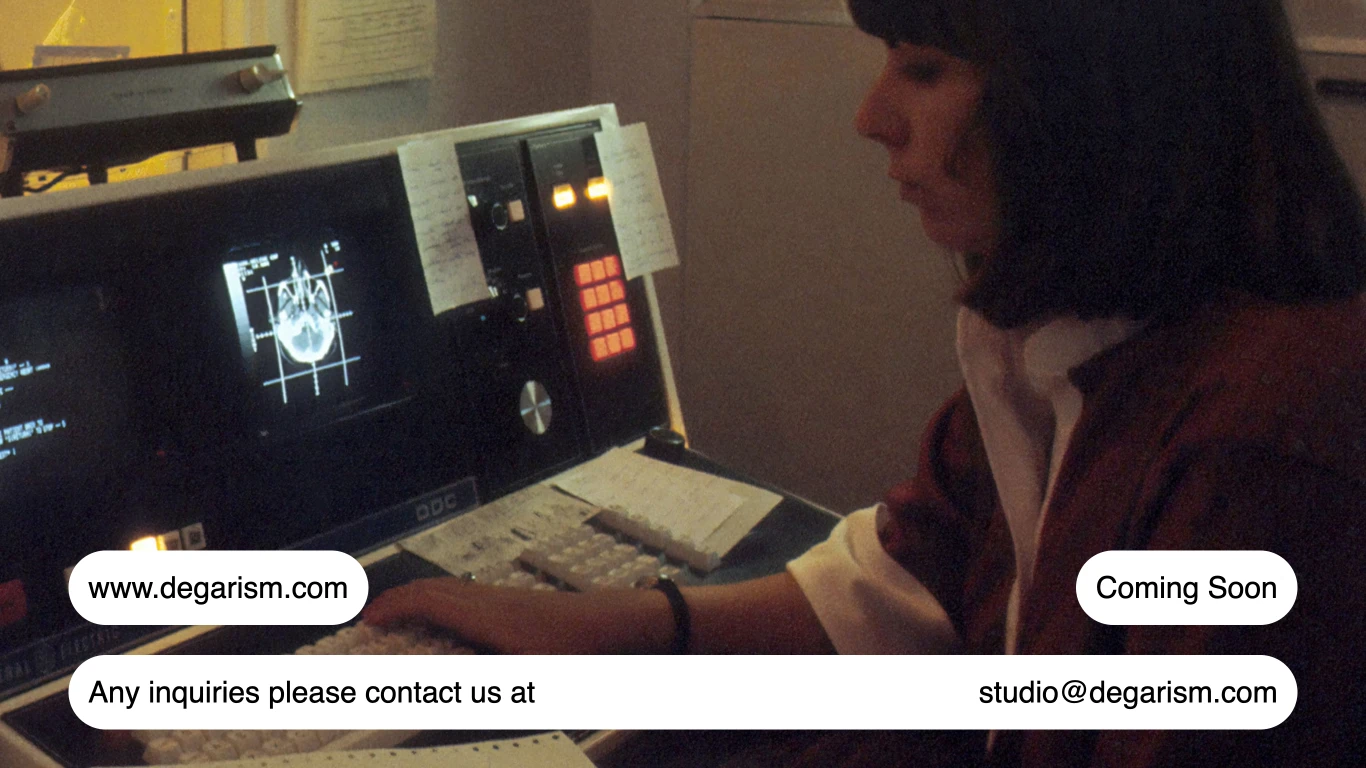
Indonesia
2015
Degarism Studio is an independent digital type foundry based in Bandung, Indonesia, founded in 2015 by Deni Anggara.The studio specializes in art direction, high-usability type design, and visual research, drawing inspiration from 1950s European design movements and figures like Josef Müller-Brockmann and Wim Crouwel. Their notable typefaces include 'Biotif,' 'Aktifo,' and 'Fracktif,' known for their modern aesthetics and versatility.